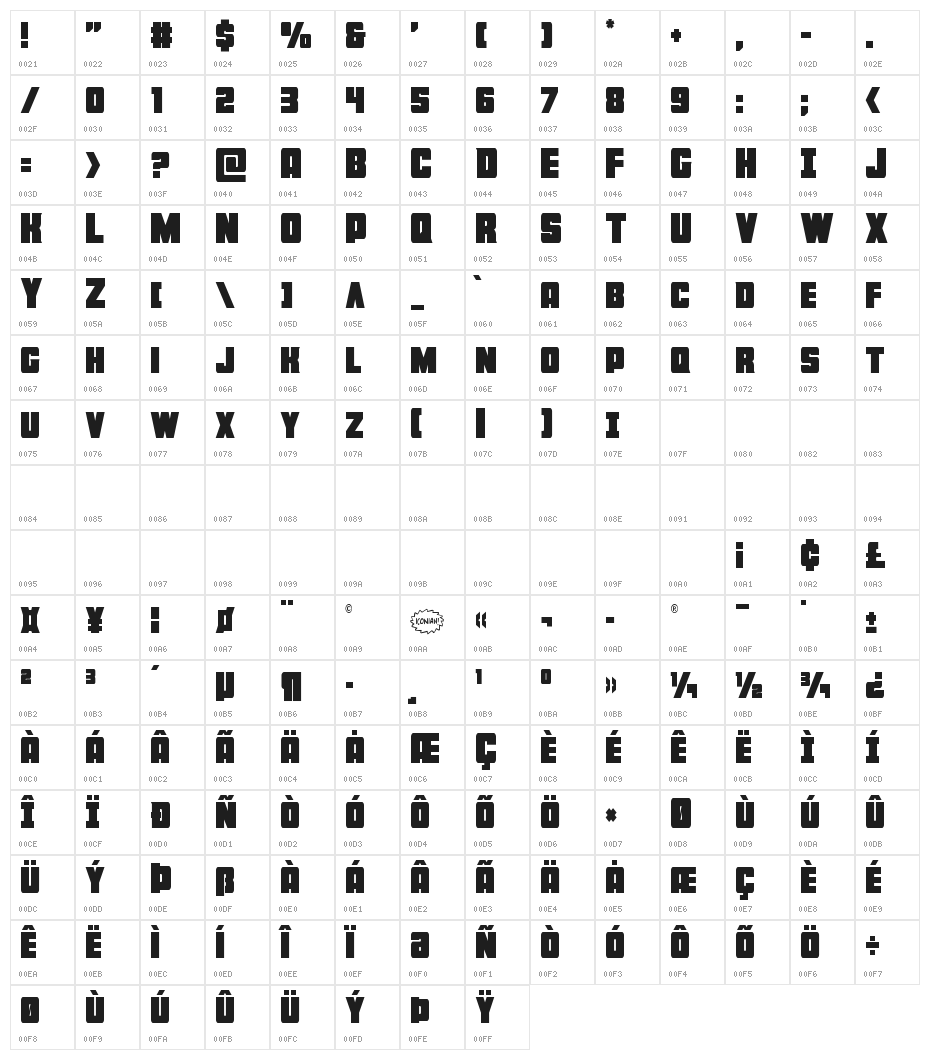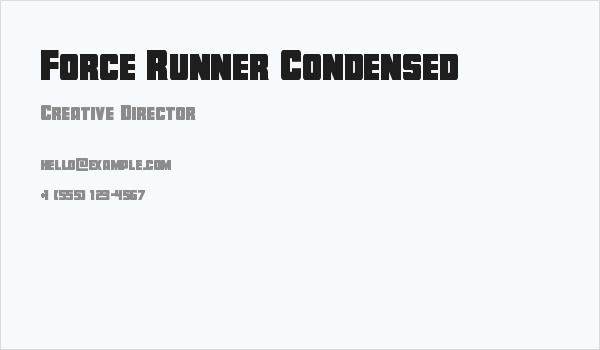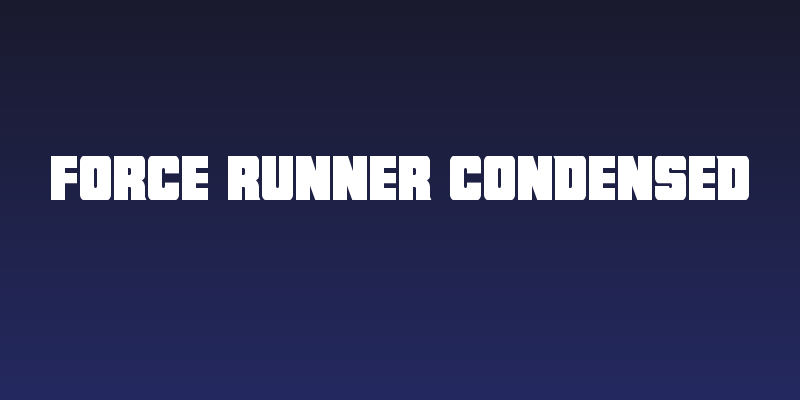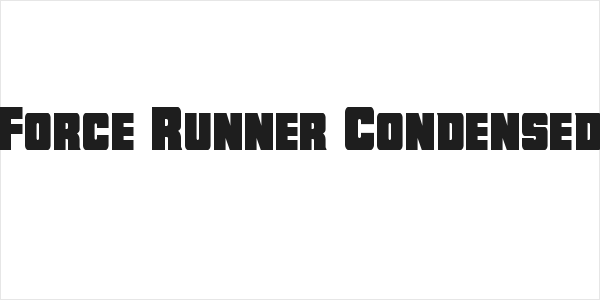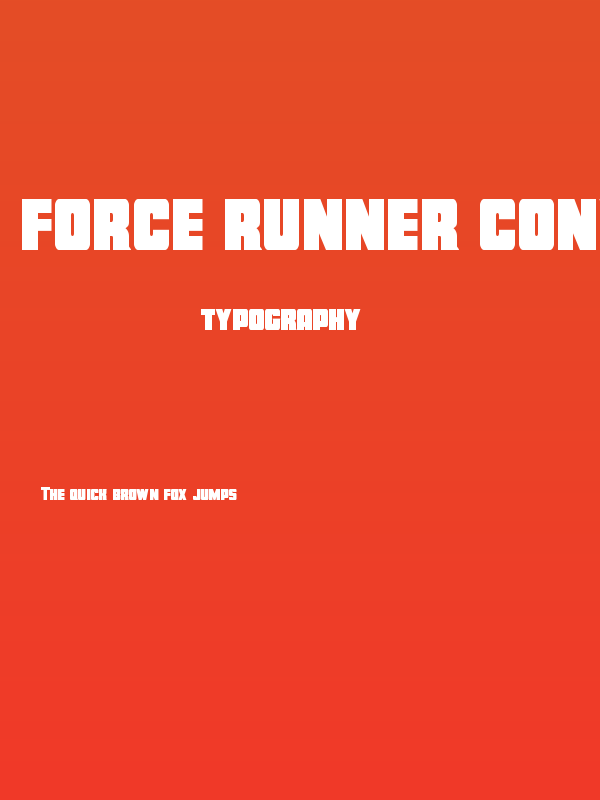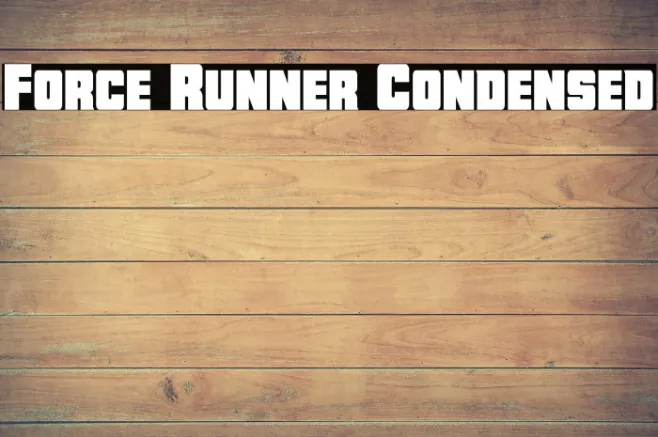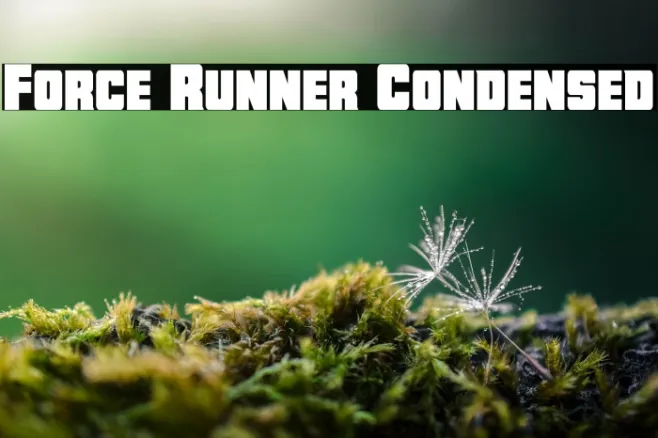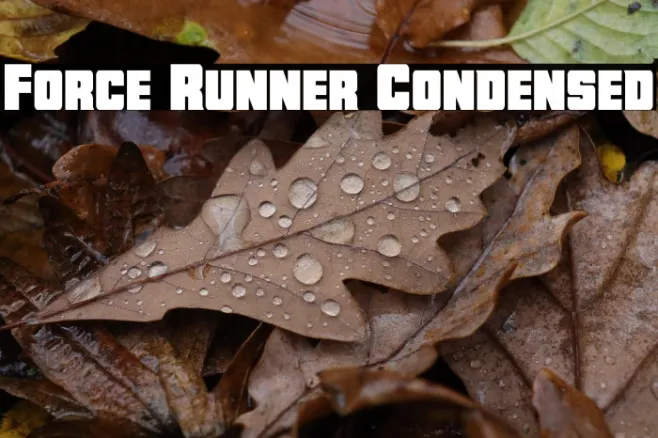
Force Runner Condensed Font
Force Runner Condensed Description
This font features a bold and impactful design with a condensed structure, making it ideal for creating strong visual statements. The characters are uniformly thick, with minimal variation in stroke width, contributing to a cohesive and powerful appearance. The uppercase letters are particularly striking, with a blocky and geometric style that enhances readability and presence. The numerals and special characters maintain the same robust aesthetic, ensuring consistency across all uses. This font's design is modern and assertive, suitable for projects that require a commanding and attention-grabbing typeface.